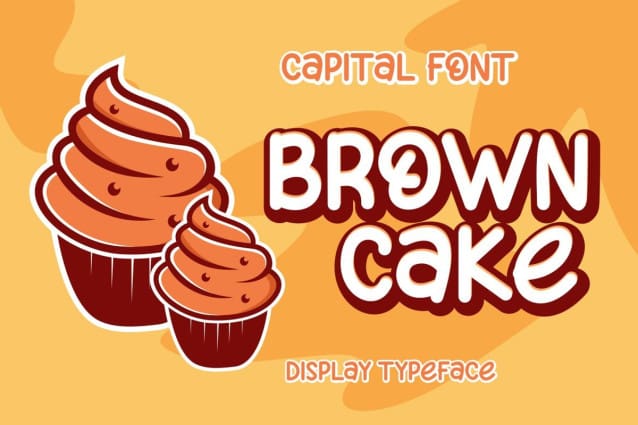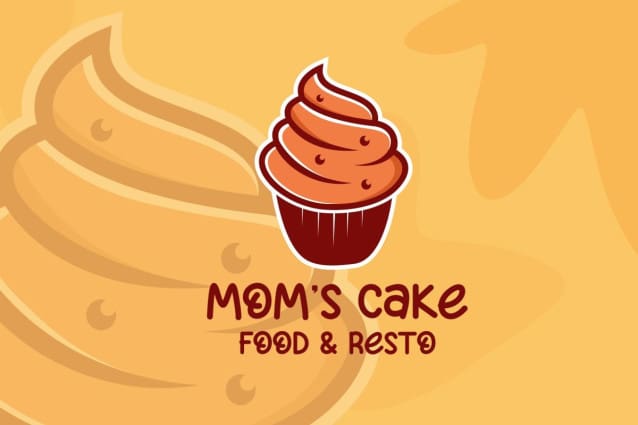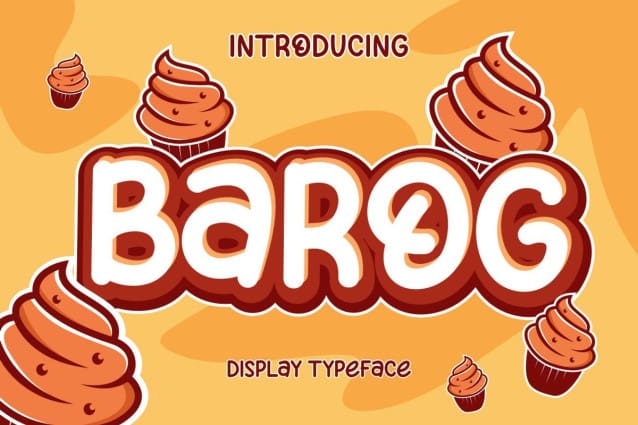
Barog Playful Font
Barog Playful Font – Modern Font Barog Font – Modern Font is a bold and authentic display font. This font is perfect for any branding project such as logos, t-shirt printing, creative products, and more. extraordinary in a variety of contexts.